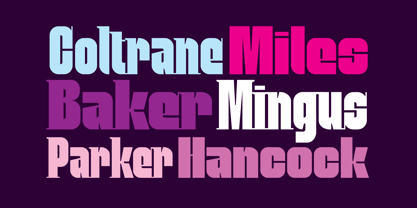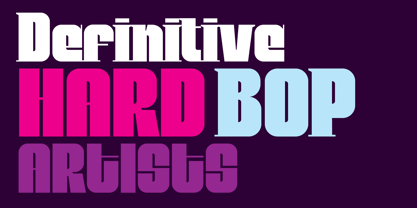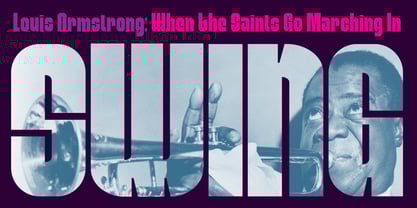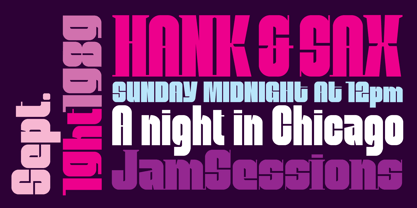
Mobley Serif
por Sudtipos
A família de fontes Mobley Serif foi desenhada por Alejandro Paul e publicada pela Sudtipos. Mobley Serif contém 2 estilos.
Mobley Family was designed by Alejandro Paul. Based on ten characters found on the cover of a 1960s Blue Note jazz album.The source characters were originally designed for film-based typesetting by Wayne Stettler as part of a single typeface published by Visual Graphics Corporation (VGC) under the name Neil Bold.Mobley Sans, along with its condensed and serifed counterparts, constitute a brand new typographic whole molded around the original inspirational source. The family embodies the independent creative spirit of that era - yet manages to remain contemporary with several modern design traits - creating its own unique visual theme through the use of odd counters, generous curves and sharp corners.Mobley delivers your message in a bold, yet friendly, and subtly discerning fashion. Perfect for music artwork, packaging and book covers.Available with both sans and serif versions, in regular and condensed widths.
Designers: Alejandro Paul
Sudtipos is a new collective Argentinian type foundry. New blood, new attitude. A joint venture of four professional designers with lots of expertise in different areas like branding, packaging design, corporate identity, television and new media. “The foundry, or collective as we prefer to designate it, started because of that — packaging, editorial or brand designers making fonts for real designers” Alejandro Paul, one of the company’s founders, said in his Creative Characters interview. Alejandro “Ale” Paul made a name for himself drawing and programming some of the most intricate script fonts ever digitized. “My experience in branding product packaging was a natural catalyst for me to be interested in scripts and seek like-minded people for the collective.” The collective’s bestselling scripts include Bowling Script, Horizontes Script and Hipster Script Pro, which was named one of MyFonts’ most popular fonts of 2012, and was recognized by both Typographica and Type Directors Club that same year. “Our aim is to always be graphic designers making typefaces for graphic designers,” Ale said. “We try not to lose that particular focus. We’re always thinking about how to make a graphic designer’s work easier when it comes to using the type element in his or her design.” The Premium Foundry Page can be viewed Here.